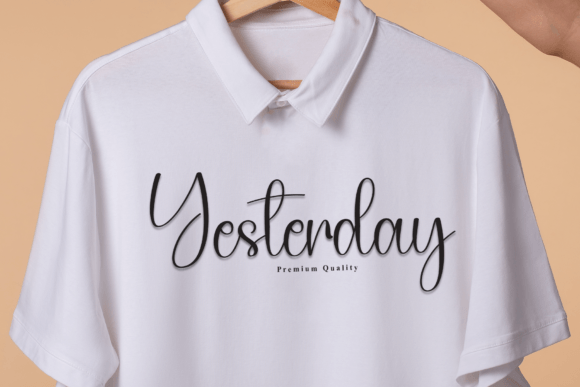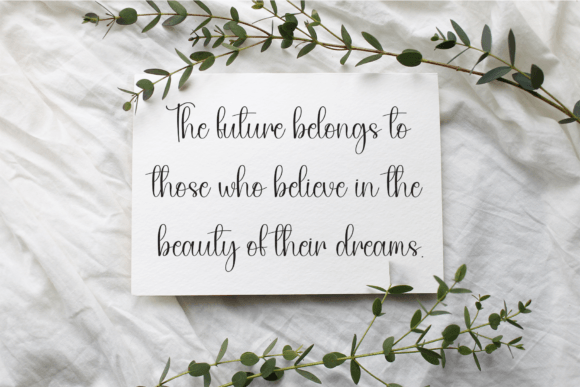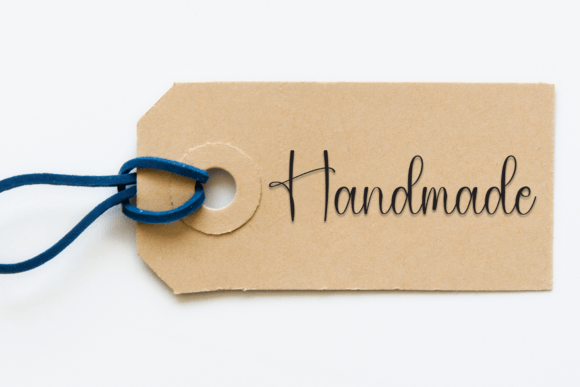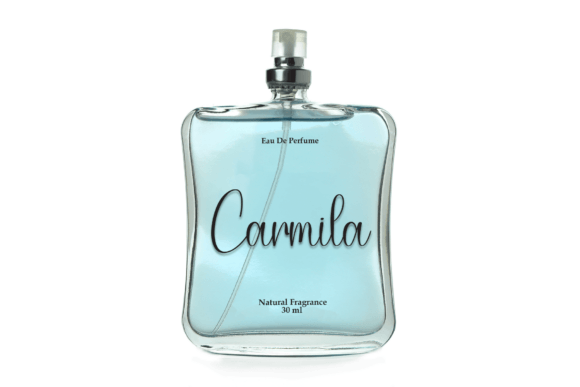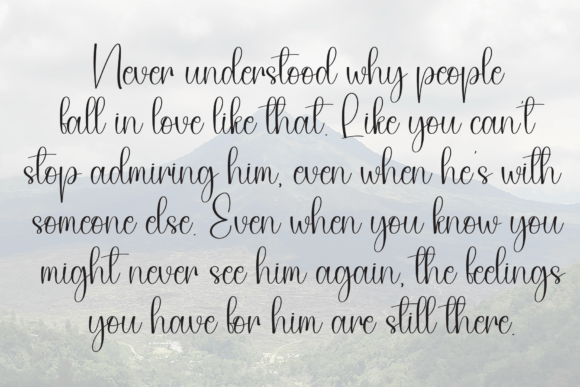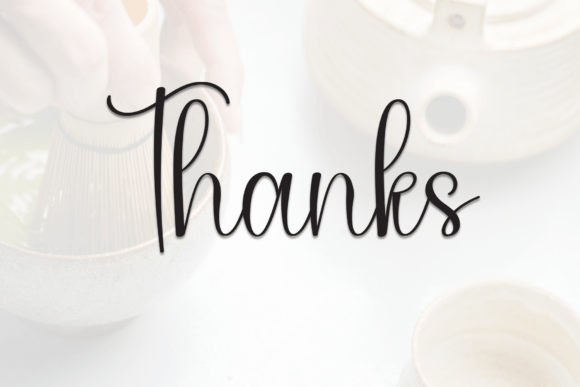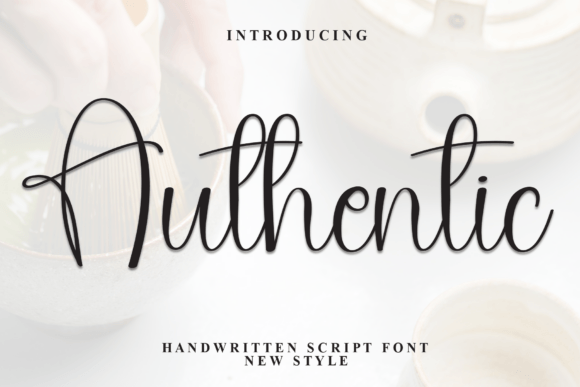
Discover the Elegance of Authentic Font: Elevate Your Designs with Timeless Sophistication
In the world of typography, few fonts manage to capture the essence of classic elegance while still feeling modern and fresh. Authentic font is one such gem that brings together the best of both worlds, offering a sophisticated script font that is both contemporary and timeless. Inspired by the beauty of classic calligraphy, Authentic font is designed to add a touch of impeccable form and elegance to any project.
The Inspiration Behind Authentic Font
Authentic font draws its inspiration from the rich heritage of classic calligraphy, where every stroke and curve was a testament to the skill and precision of the calligrapher. The creators of Authentic font sought to capture this essence, infusing it with a modern twist that makes it suitable for a wide range of design applications. The result is a font that feels both nostalgic and current, perfect for designers looking to add a touch of sophistication to their work.
Design Characteristics of Authentic Font
One of the standout features of Authentic font is its balanced and varied design. Unlike some script fonts that can be too thin or too thick, Authentic strikes the perfect balance, making it versatile and highly readable. The font’s lines are fluid and graceful, with subtle variations in weight that mimic the natural flow of handwriting. This attention to detail ensures that Authentic font looks elegant and refined, whether used for headings, titles, or body text.
Why Choose Authentic Font for Your Projects?
For designers and crafters looking for a font that can elevate their projects, Authentic font offers several compelling advantages:
- Versatility: Authentic font is designed to be versatile, making it suitable for a wide range of projects, from branding and advertising to packaging and editorial design.
- Elegance: Its classic calligraphic roots give it an air of sophistication and elegance, perfect for designs that require a touch of luxury or refinement.
- Readability: Despite its elegant nature, Authentic font remains highly readable, even at smaller sizes, making it practical for use in body text as well as headings.
- Uniqueness: In a sea of generic fonts, Authentic font stands out with its unique character and personality, ensuring that your designs will have a distinctive look.
Using Authentic Font in Your Designs
For crafters and DIY enthusiasts, Authentic font can also be a great addition to your toolkit, allowing you to create beautiful, professional-looking projects for personal use or as gifts.
Tips for Maximizing the Impact of Authentic Font
To get the most out of Authentic font, consider the following tips:
- Pair it with contrasting fonts: Combine Authentic font with a simpler, sans-serif font for body text to create visual interest and hierarchy.
- Use it for emphasis: Authentic font’s elegant nature makes it perfect for headings and titles, where it can add emphasis and draw attention.
- Experiment with colors: While Authentic font looks stunning in traditional black and white, don’t be afraid to experiment with colors that complement its elegant feel.
Authentic font is a beautiful, elegant script font that brings a touch of timeless sophistication to any design project. With its balanced design, classic inspiration, and versatile nature, it’s an excellent choice for designers and crafters looking to elevate their work. Whether you’re creating branding materials, editorial content, or personal projects, Authentic font is sure to make a lasting impression.
Discover the elegance of Authentic font today and take your designs to new heights of sophistication and style.